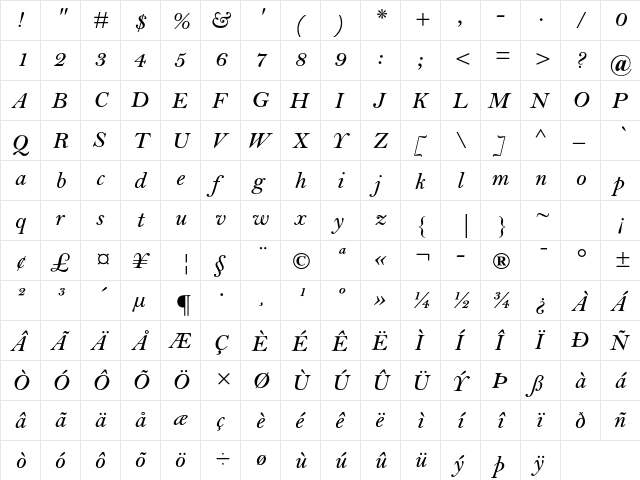
Bell MT Std Semibold Italic
| Designer | Richard Austin |
Design Context for Bell MT Std Typeface
Bell MT Std offers clean, dependable letterforms without strong stylistic allegiance, making it a practical choice for designers who need flexibility. The slanted form adds forward momentum and visual energy. Its bold stroke weight gives it real presence on the page.
Pro Tip: Try Bell MT Std for annotation and caption copy alongside an upright companion — the contrast in angle creates a dynamic but ordered typographic system.